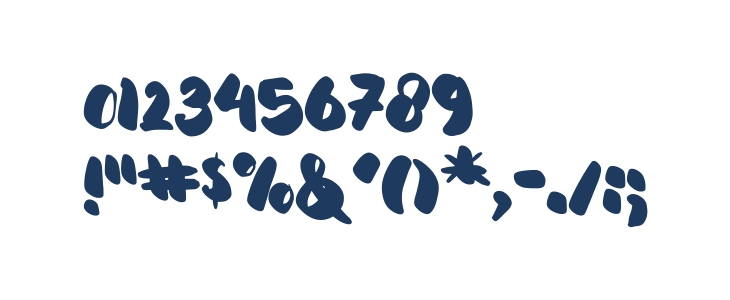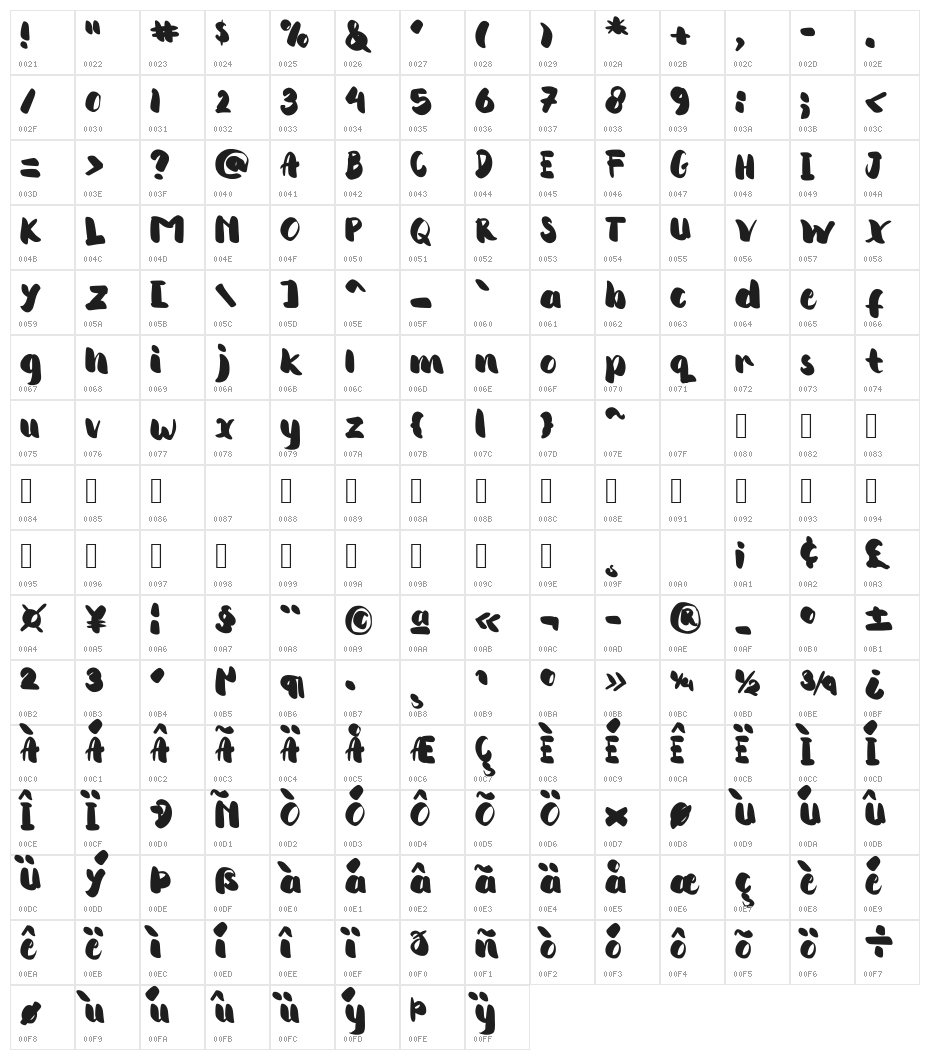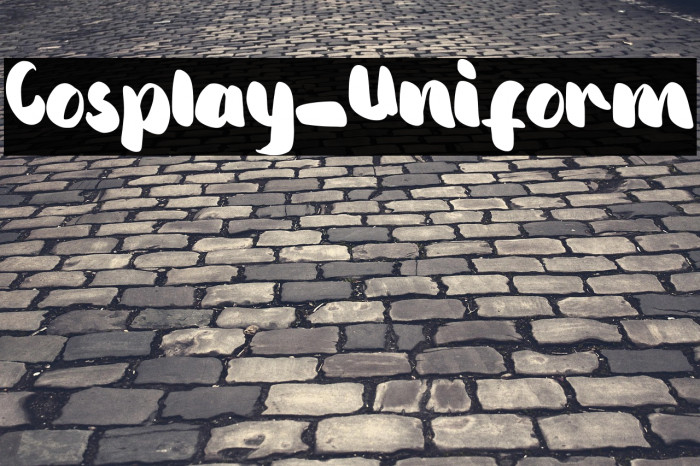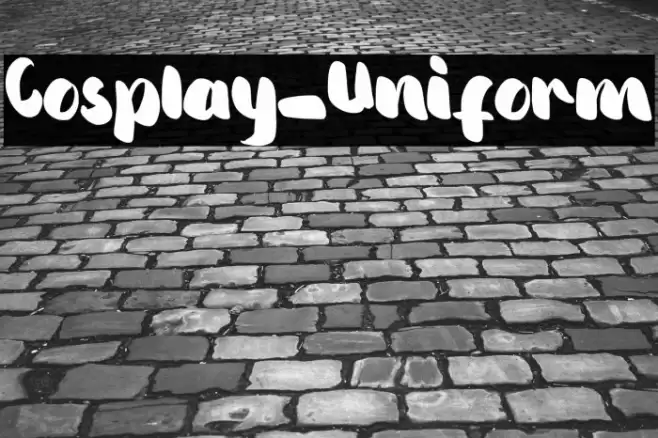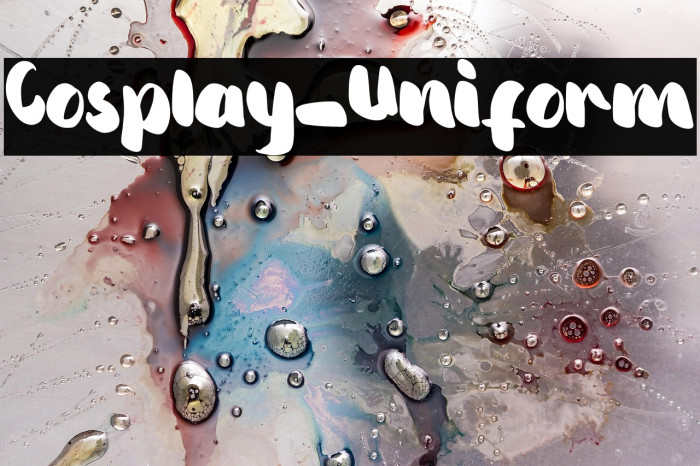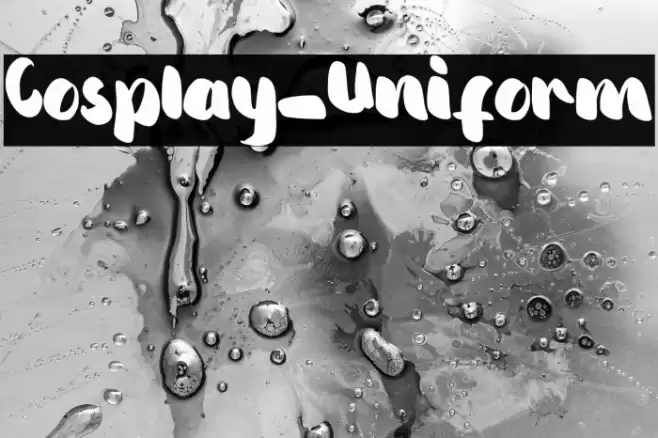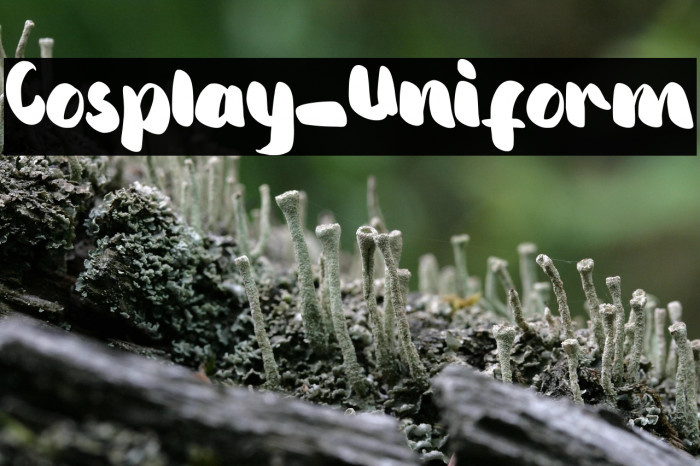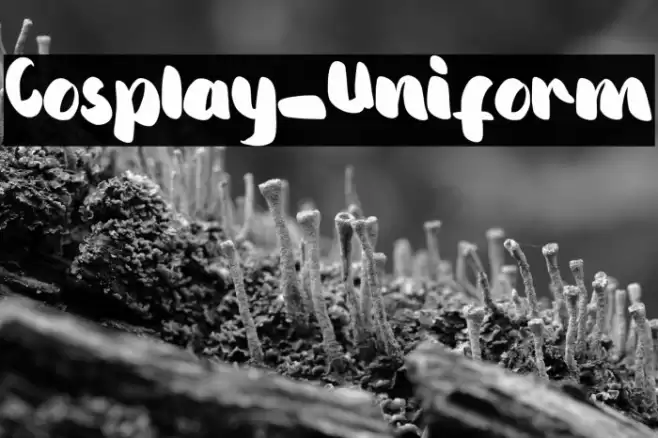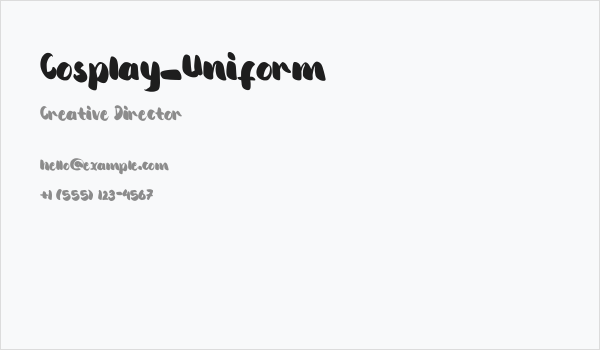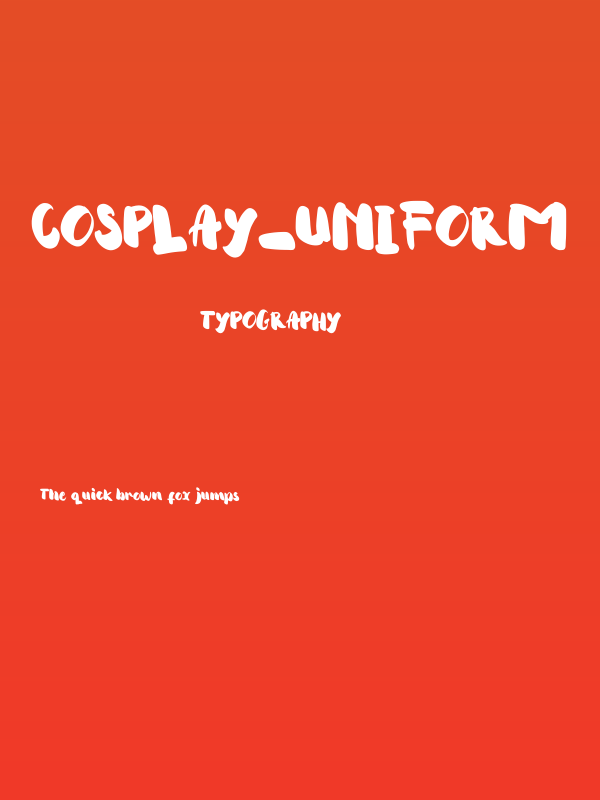
Cosplay_Uniform Font
This font features a bold and playful style with a handwritten appearance. The letters are thick and rounded, giving them a friendly and approachable look. The uppercase and lowercase letters maintain a consistent style, with some characters having unique, quirky shapes that add to its charm. The numbers and special characters follow the same bold and rounded design, ensuring uniformity across all glyphs. This font is ideal for projects that require a fun and informal touch, such as children's books, playful branding, or creative posters.
| Proposed Projects | Children's books, playful branding, creative posters, informal invitations. |